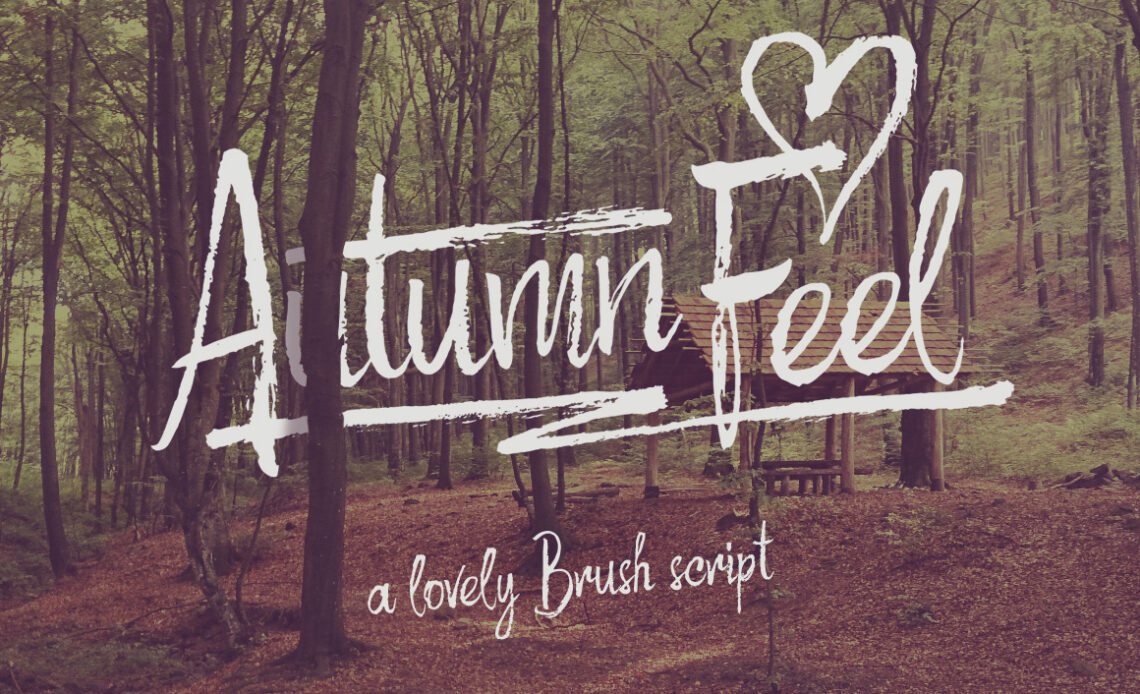
Behold the Enchanting World of Autumn Feel Font: A Tapestry of Grace and Charm
Immerse yourself in the captivating essence of the Autumn Feel Font, a breathtaking script font designed to evoke the allure of an autumnal breeze. Created with meticulous attention to detail by the visionary Gleb Guralnyk, this font is a masterpiece of artistry, imbued with the warmth and elegance of nature's grandest season.
Journey through a symphony of letters that dance across the page like falling leaves, each stroke a testament to the beauty and wonder of the natural world. The Autumn Feel Font is a symphony of grace and charm, its delicate curves and flowing lines reminiscent of a gentle autumn rain.
With its enchanting appearance, the Autumn Feel Font is the perfect choice for a wide array of creative projects that demand a touch of sophistication and whimsy. From wedding invitations and greeting cards to social media posts and branding materials, this font adds an air of elegance and charm to any design.
Additional Features:
- Autumn Feel Extras Font: Expand your creative horizons with the accompanying Autumn Feel Extras font, a treasure trove of swashes and dynamic strokes that add a touch of flair and personality to your designs.
- Endless Creative Possibilities: Allow your imagination to run wild with the Autumn Feel Font, perfect for a plethora of creative projects, from logos and posters to invitations and social media graphics.